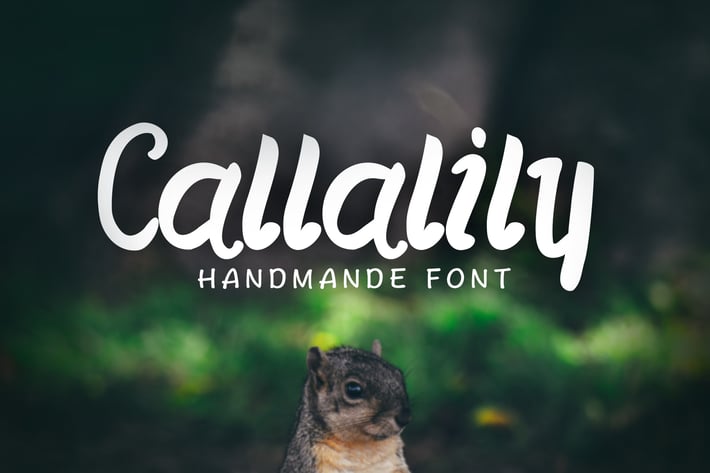
Callalily Typeface
We Provide You one of the best Circus Inspired Font type. Best match for logos, header, Titles, Prints & other Creative process possibilities.
Create a Extraordinary Typography or lettering results by using Callalily Typeface
+ Clean Results